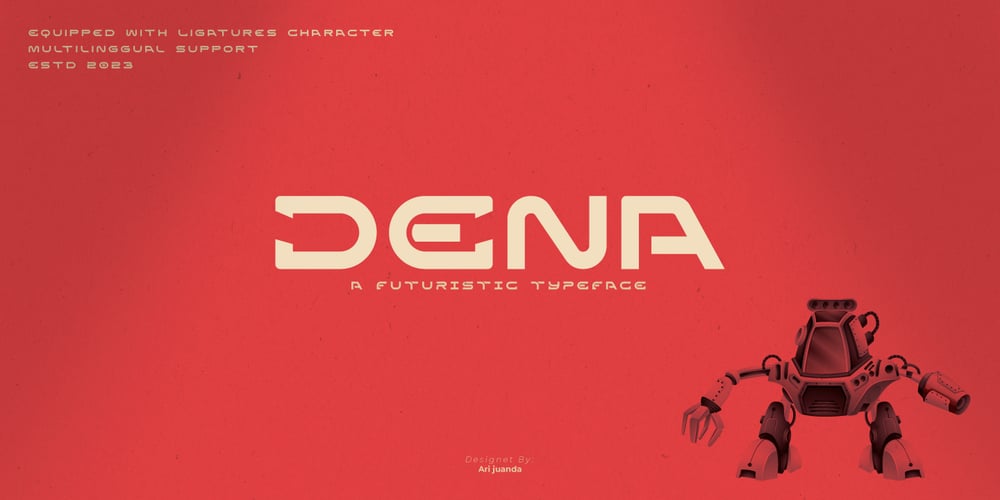
Dena
Dena font
Dena Font Family was designed by Ari Juanda and published by Linecreative. Dena contains 1 styles and family package options. Presenting Dena Font, a forward-thinking typeface that straddles the boundaries of future aesthetics and modern design. Designed for the cutting edge designer, Dena Font is more than simply a letterform—it’s a design language, a representation of sophisticated elegance influenced by cyberculture, sci-fi movies, and innovative video games.Dena Font is a tool that gives designers the ability to push the frontiers of creativity and reshape the visual world. Elevate your projects with Dena Font’s futuristic appeal, which combines typography with creativity.Every letterform in Dena Font has a vibrant, futuristic feel to it. The deftly drawn characters blend together to create a visual rhythm that mirrors the quick-paced, constantly-changing nature of contemporary design.Modern Futuristic style: With futuristic style, Dena Font is at the vanguard of modern design. It is the perfect option for forward-thinking design projects because every curve and shape is painstakingly created to communicate a sense of innovation and advancement.Ligature-Enhanced Creativity: Dena Font’s rich ligature set enables designers to smoothly combine characters to create a flowing and melodic typographic expression. These artistically elegant ligatures provide a touch of refinement to your designs and are ideal for creating distinctive logo types and brand identities.Overcoming linguistic obstacles, Dena Font provides extensive assistance for the Latin Western Europe character set. This makes your creative vision a flexible instrument for international design projects by guaranteeing successful communication across linguistic environments.